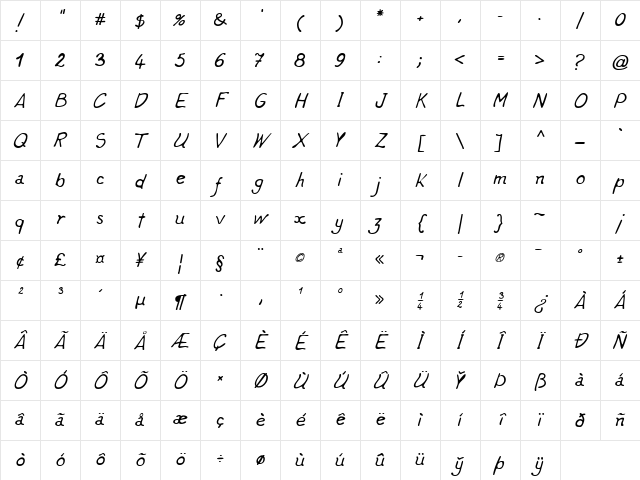
Remi flows with the natural rhythm of handwritten lettering, making it ideal for designs that call for warmth and personal expression.
Font Pairing: Combine Remi with a simple geometric sans for maximum contrast - the tension between flowing curves and clean structure is a classic typographic pairing.
Pro Tip: Use Remi for short runs of text - names, titles, or taglines. Extended body copy in script faces tires the eye quickly.